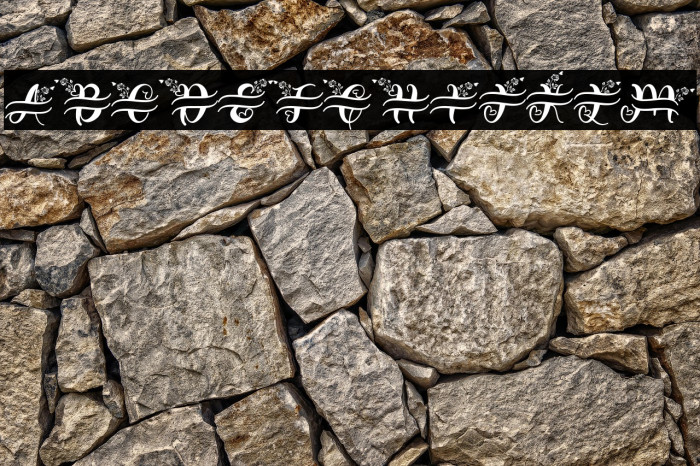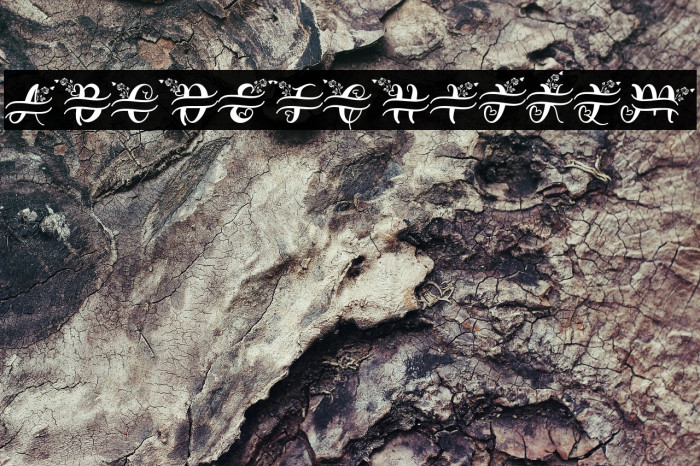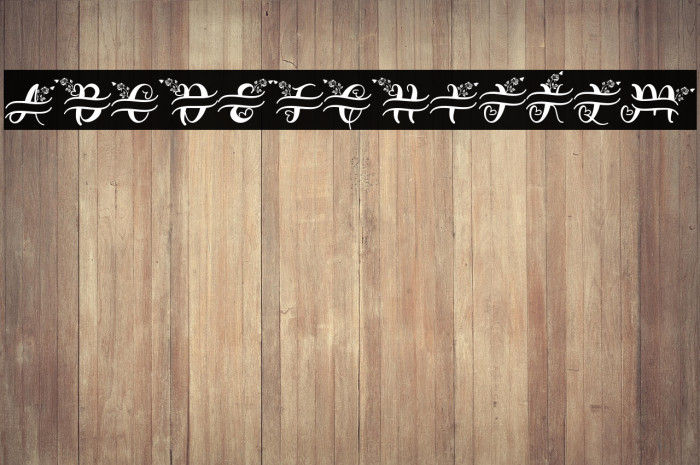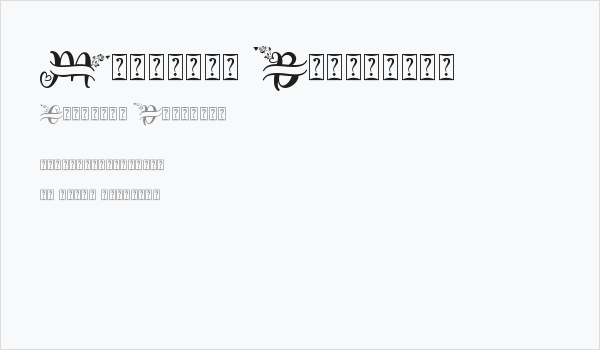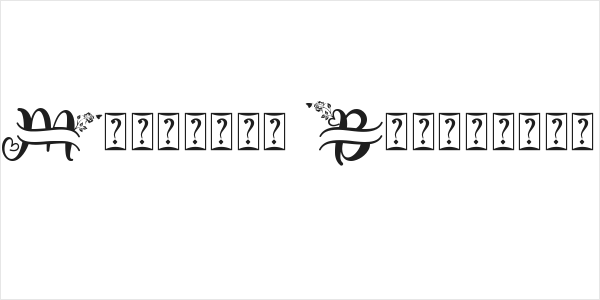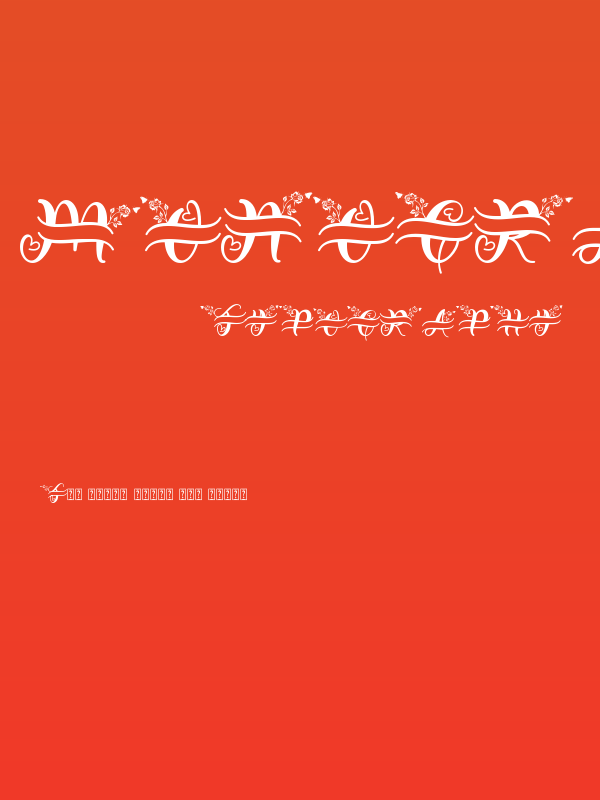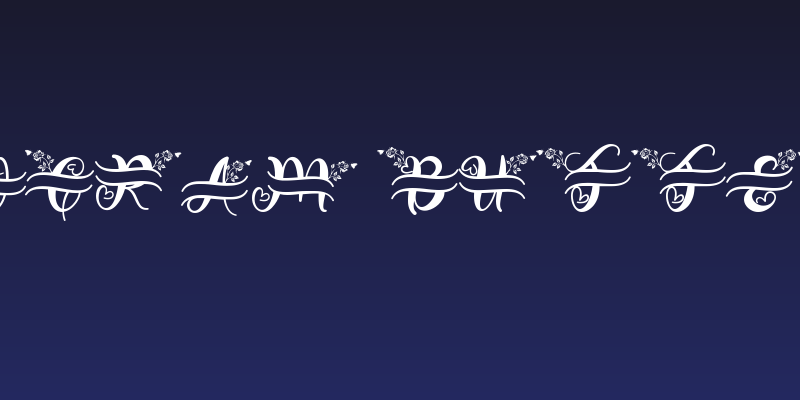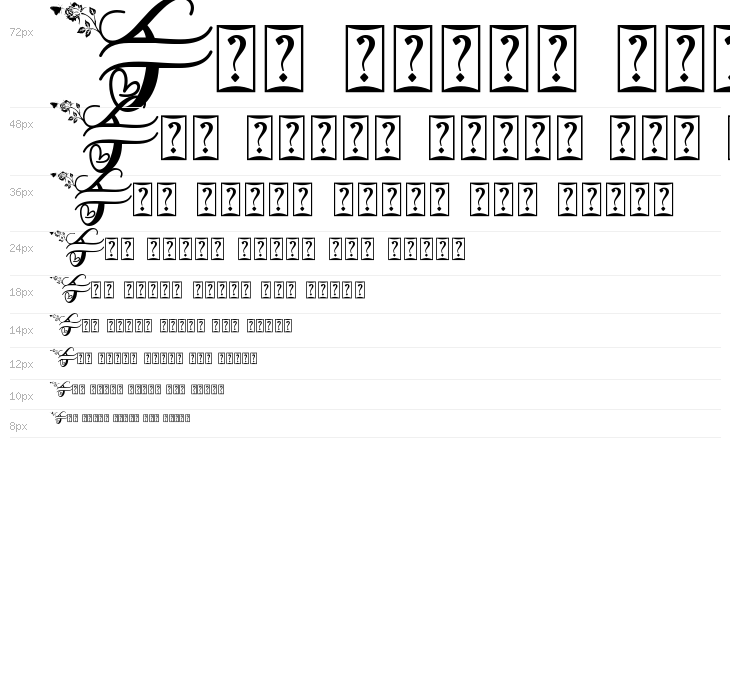
Monogram Butterfly Font
Monogram Butterfly Description
This font features an intricate and decorative design, incorporating butterfly motifs and floral elements into each character. The letters are adorned with elegant swirls and embellishments, creating a whimsical and artistic appearance. The style is highly ornamental, making it suitable for projects that require a touch of elegance and creativity. Each character is unique, with varying degrees of embellishment, giving the font a dynamic and lively feel. The overall design is cohesive, with a consistent use of decorative elements that tie the characters together beautifully.
| Use Case | Logos, Headlines, Artistic designs |
| Proposed Projects | Ideal for wedding invitations, greeting cards, decorative monograms, and artistic projects requiring a whimsical touch. |